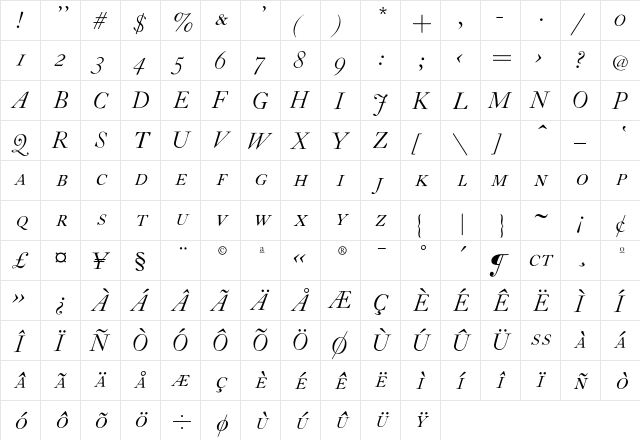
CaslonH-SC-Italic Regular
Design Context for CaslonH-SC-Italic Typeface
CaslonH-SC-Italic is a composed and adaptable typeface that performs quietly and consistently across a wide range of design contexts. The slanted form adds forward momentum and visual energy.
Pro Tip: Try CaslonH-SC-Italic for annotation and caption copy alongside an upright companion — the contrast in angle creates a dynamic but ordered typographic system.